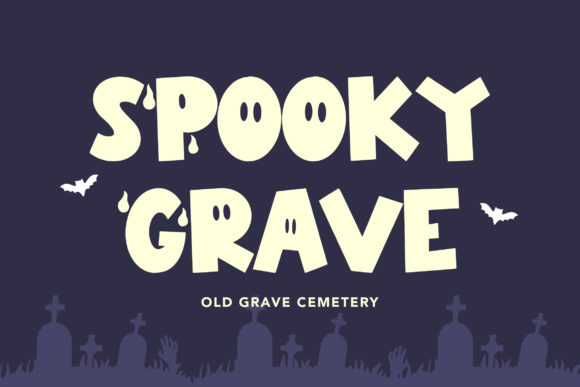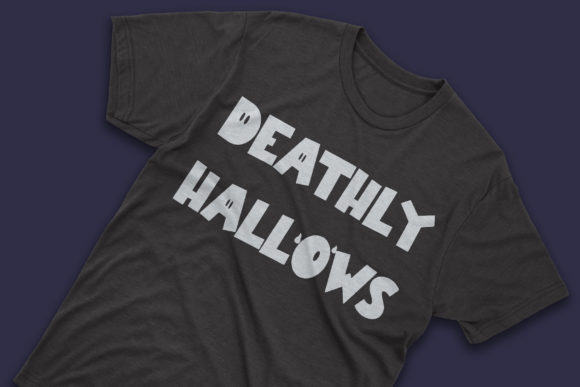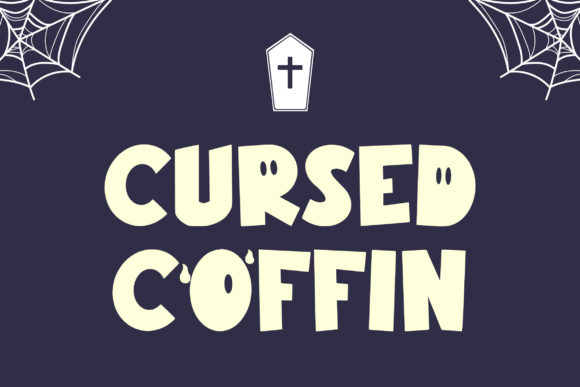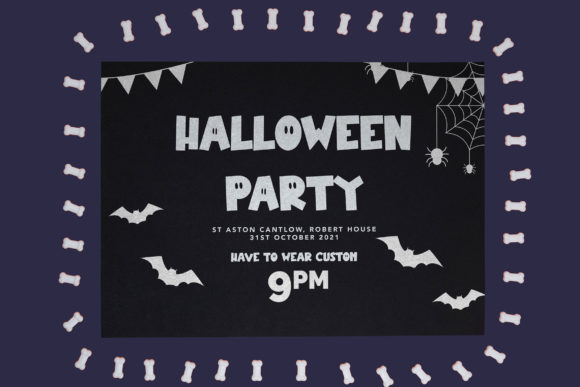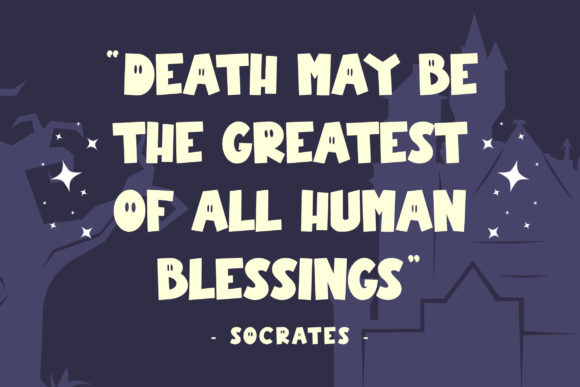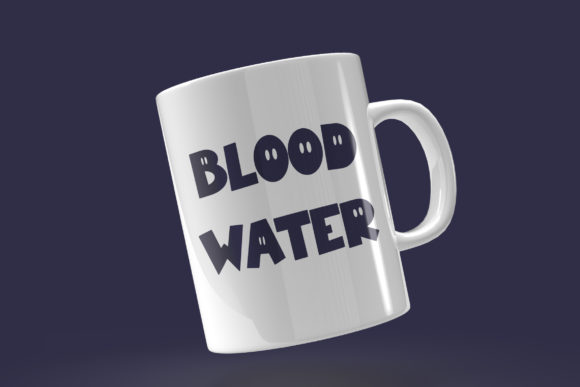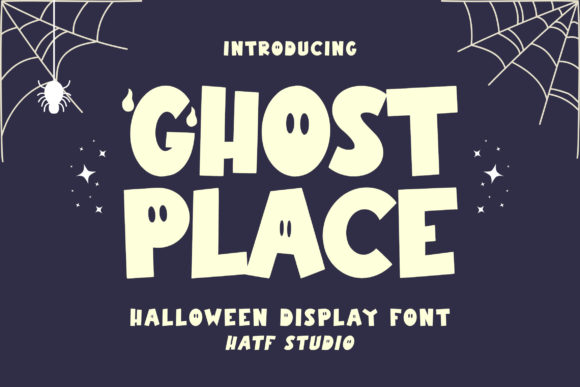
Unleash the Spook: Discover the Ghost Place Font
Are you looking to add a dash of horror and creepiness to your designs? Do you want to make your projects stand out with a unique and eye-catching font? Look no further than the Ghost Place Font, a cool display font that is sure to send chills down the spine. In this article, we’ll dive into the world of Ghost Place, exploring its features, uses, and benefits for designers and crafters.
What is Ghost Place Font?
Ghost Place is a display font that embodies the essence of horror and creepy styled vibes. Its chunky lettered design makes it perfect for adding a touch of spookiness to any project. Whether you’re working on a Halloween-themed design, a horror movie poster, or simply want to add some edge to your typography, Ghost Place is the perfect choice.
Key Features of Ghost Place Font
- Horror and Creepy Vibes: Ghost Place Font is designed to evoke a sense of eeriness and fear. Its bold and chunky letters are perfect for creating a spooky atmosphere in your designs.
- Display Font: Ghost Place is a display font, making it ideal for headlines, titles, and other attention-grabbing elements in your designs.
- Chunky Lettered Design: The font’s chunky lettered design makes it easy to read and adds a touch of playfulness to your designs.
- Versatile: Ghost Place can be used in a variety of design projects, from posters and flyers to social media graphics and blog posts.
Uses of Ghost Place Font
Ghost Place Font is perfect for a wide range of design projects, including:
- Halloween-themed designs: Create spooky and eye-catching designs for Halloween, including posters, flyers, and social media graphics.
- Horror movie posters: Add a touch of horror and creepiness to your movie posters with Ghost Place Font.
- Typography designs: Use Ghost Place to create unique and eye-catching typography designs, including quotes, phrases, and slogans.
- Crafting projects: Add a touch of spookiness to your crafting projects, including handmade cards, gift tags, and scrapbooking pages.
Benefits of Using Ghost Place Font
Using Ghost Place Font in your designs offers a range of benefits, including:
- Unique and eye-catching designs: Ghost Place Font adds a touch of horror and creepiness to your designs, making them stand out from the crowd.
- Easy to read: Despite its chunky design, Ghost Place Font is easy to read, making it perfect for headlines and titles.
- Versatile: Ghost Place can be used in a wide range of design projects, from posters and flyers to social media graphics and blog posts.
- Time-saving: With Ghost Place Font, you can create spooky and eye-catching designs in no time, saving you time and effort.
Tips for Using Ghost Place Font
Here are some tips for using Ghost Place Font in your designs:
- Use it sparingly: Ghost Place Font is a bold and attention-grabbing font, so use it sparingly to avoid overwhelming your designs.
- Pair it with other fonts: Pair Ghost Place Font with other fonts to create a unique and eye-catching typography design.
- Experiment with colors: Experiment with different colors to find the perfect combination for your design.
- Have fun: Most importantly, have fun with Ghost Place Font! It’s a versatile and creative font that can add a touch of spookiness to any design.
Ghost Place Font is a cool display font that is perfect for adding a touch of horror and creepiness to your designs. With its chunky lettered design and versatile uses, it’s a great addition to any designer’s toolkit. Whether you’re working on a Halloween-themed design, a horror movie poster, or simply want to add some edge to your typography, Ghost Place Font is the perfect choice. So why not give it a try and see how it can make your designs come alive?